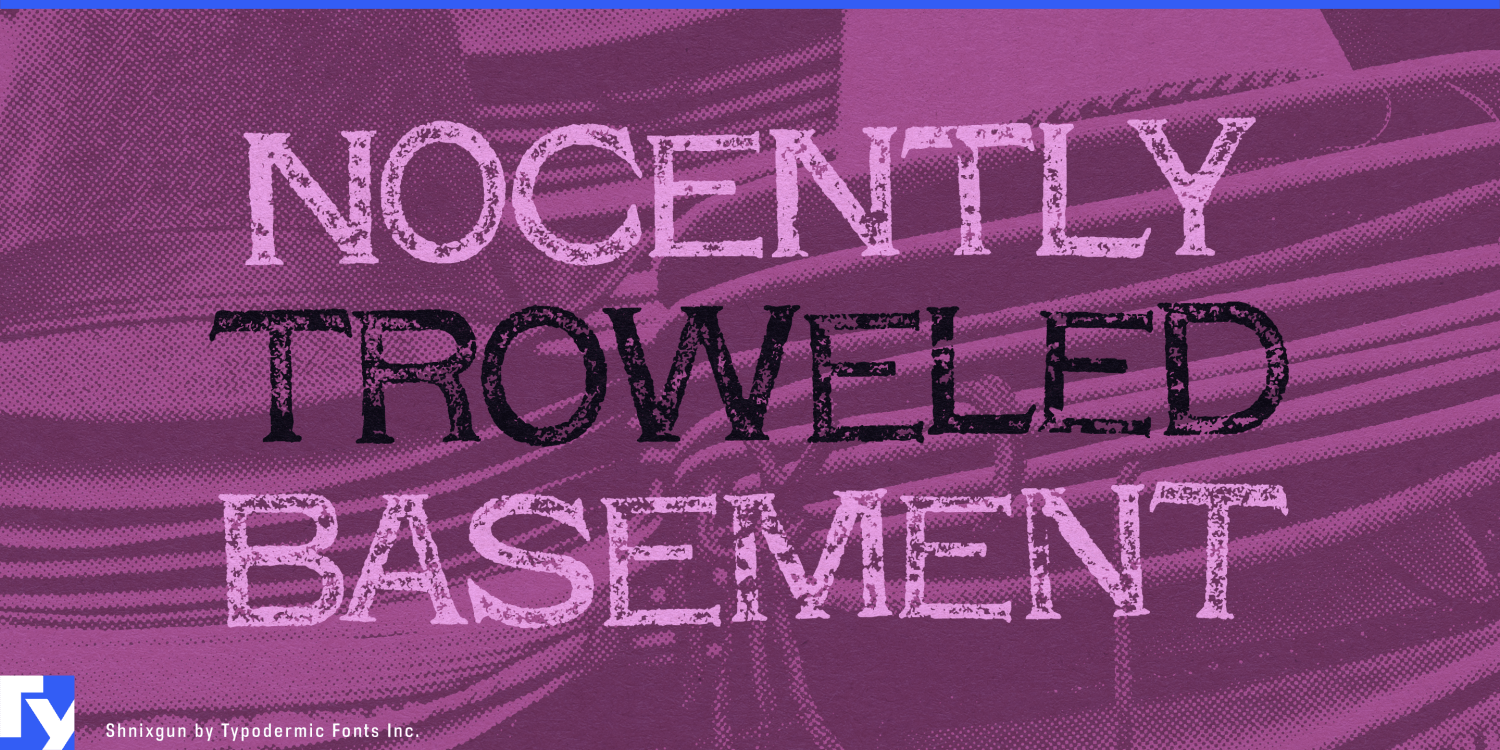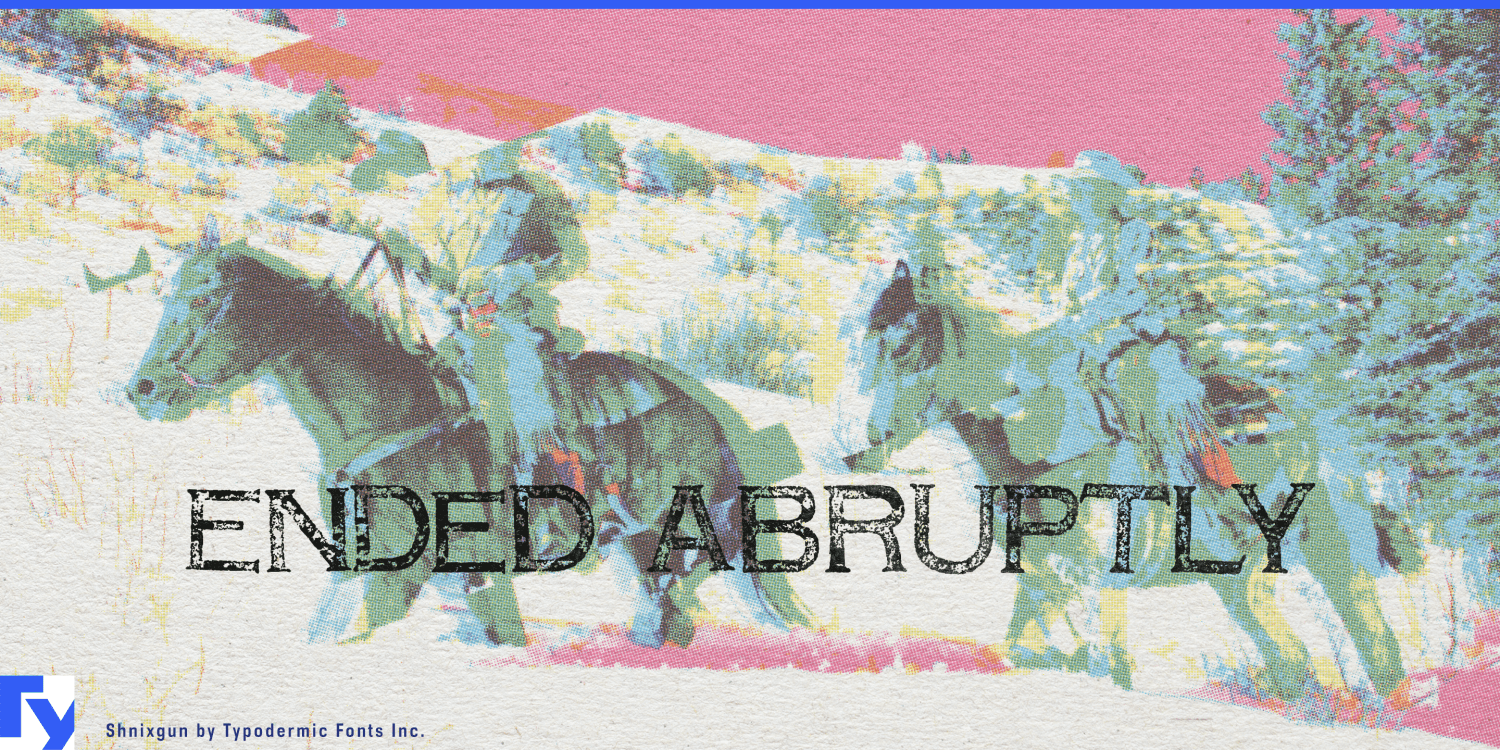
About Shnixgun
Step into the world of Shnixgun, a typeface that doesn’t just communicate—it resonates with the very soul of design. Inspired by the timeless Franklin Card Gothic, Shnixgun reimagines typography as a fusion of industrial grit and artistic…